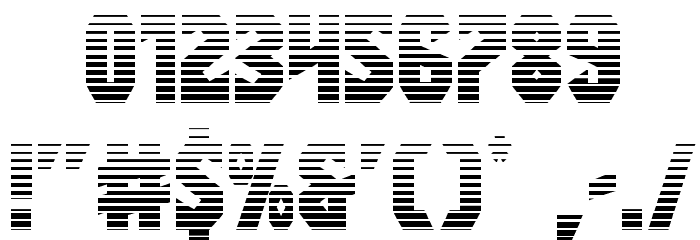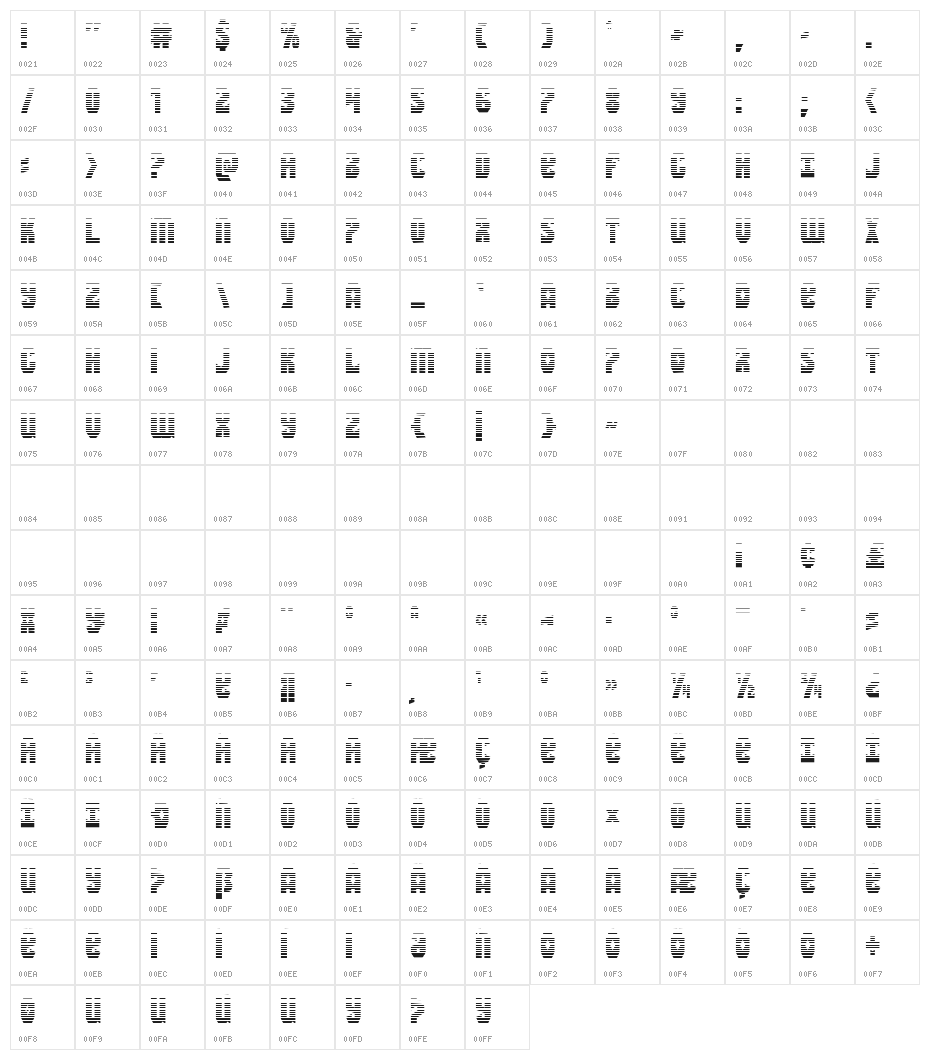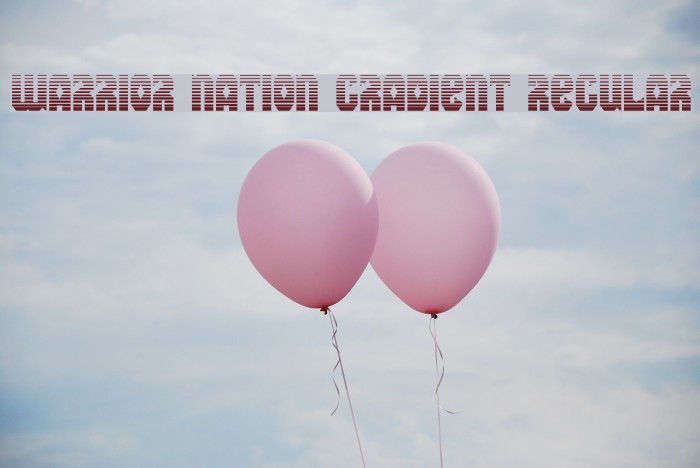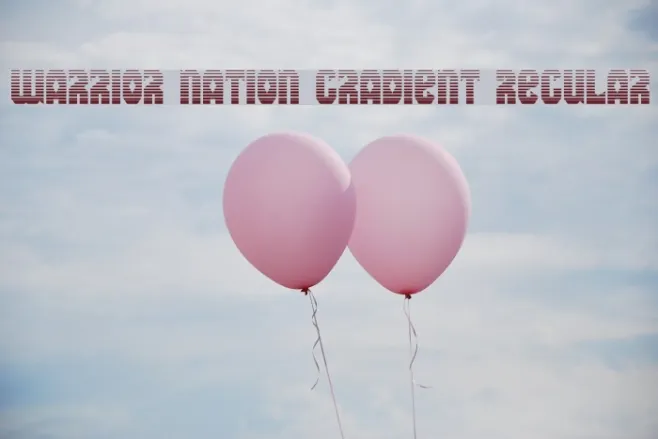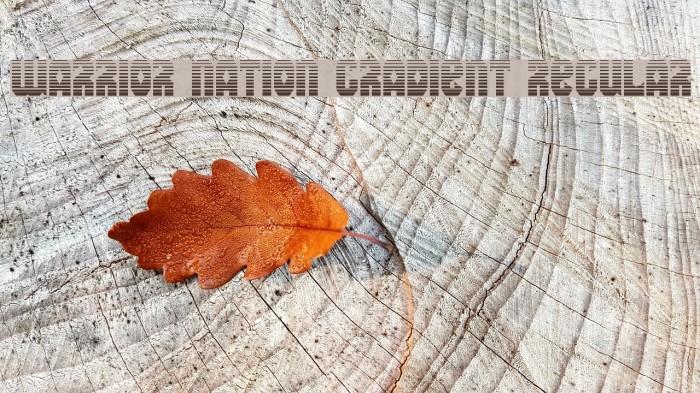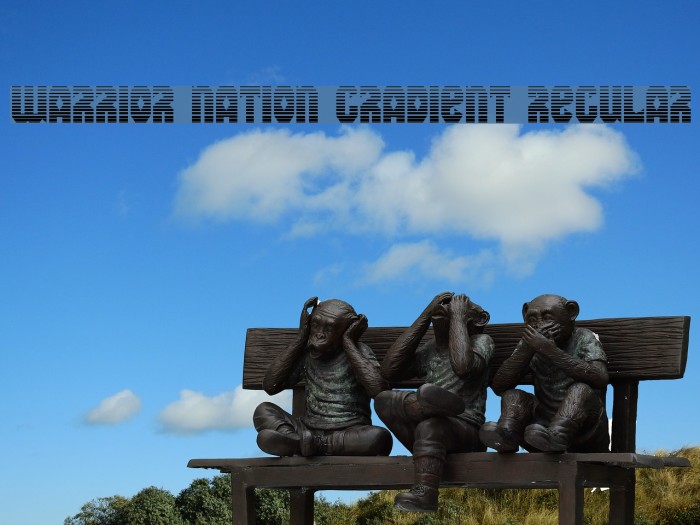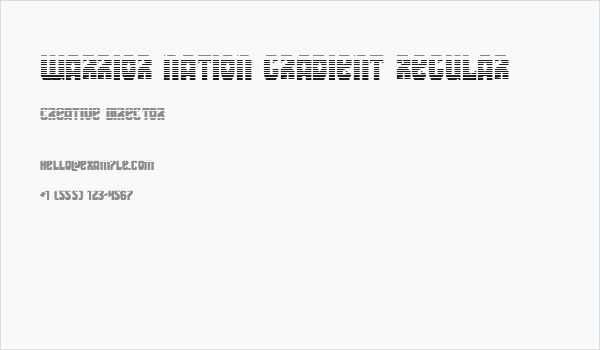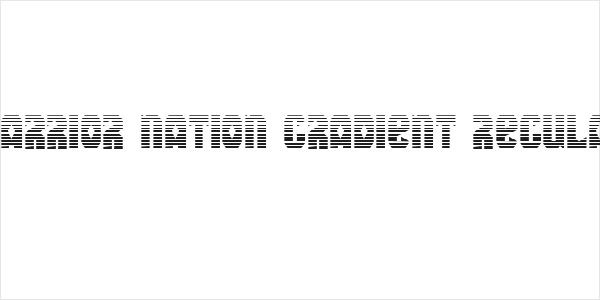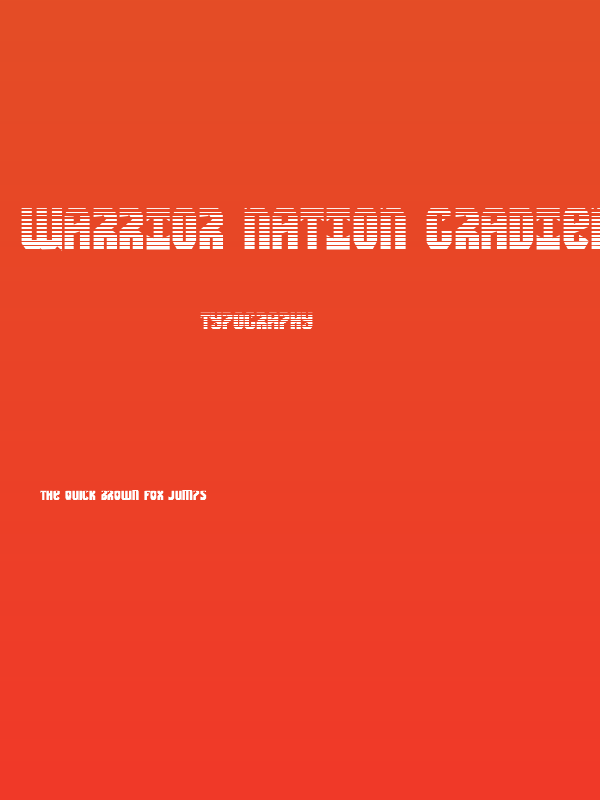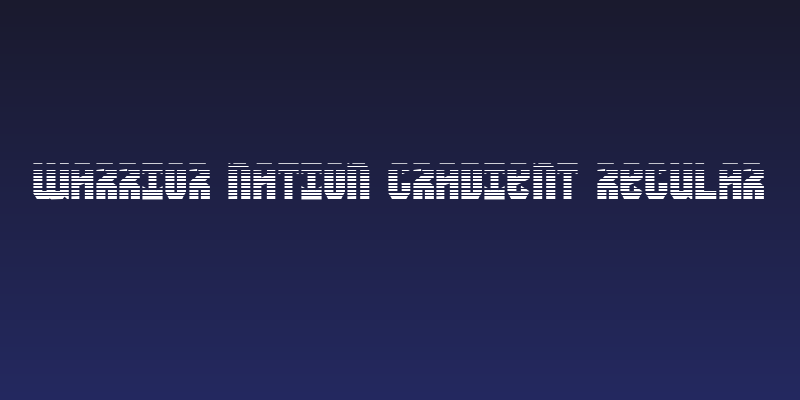
Warrior Nation Gradient Regular Font
Warrior Nation Gradient Regular Description
This font features a bold, modern design with a unique gradient effect that gives each character a striped appearance. The uppercase and lowercase letters, along with numbers and special characters, are crafted with a strong geometric structure. The horizontal lines within each character create a sense of movement and energy, making it ideal for eye-catching designs. The font's boldness and distinct style make it stand out, suitable for projects that require a contemporary and dynamic look.
| Proposed Projects | Ideal for sports branding, posters, digital artwork, and any project needing a striking, modern typeface. |